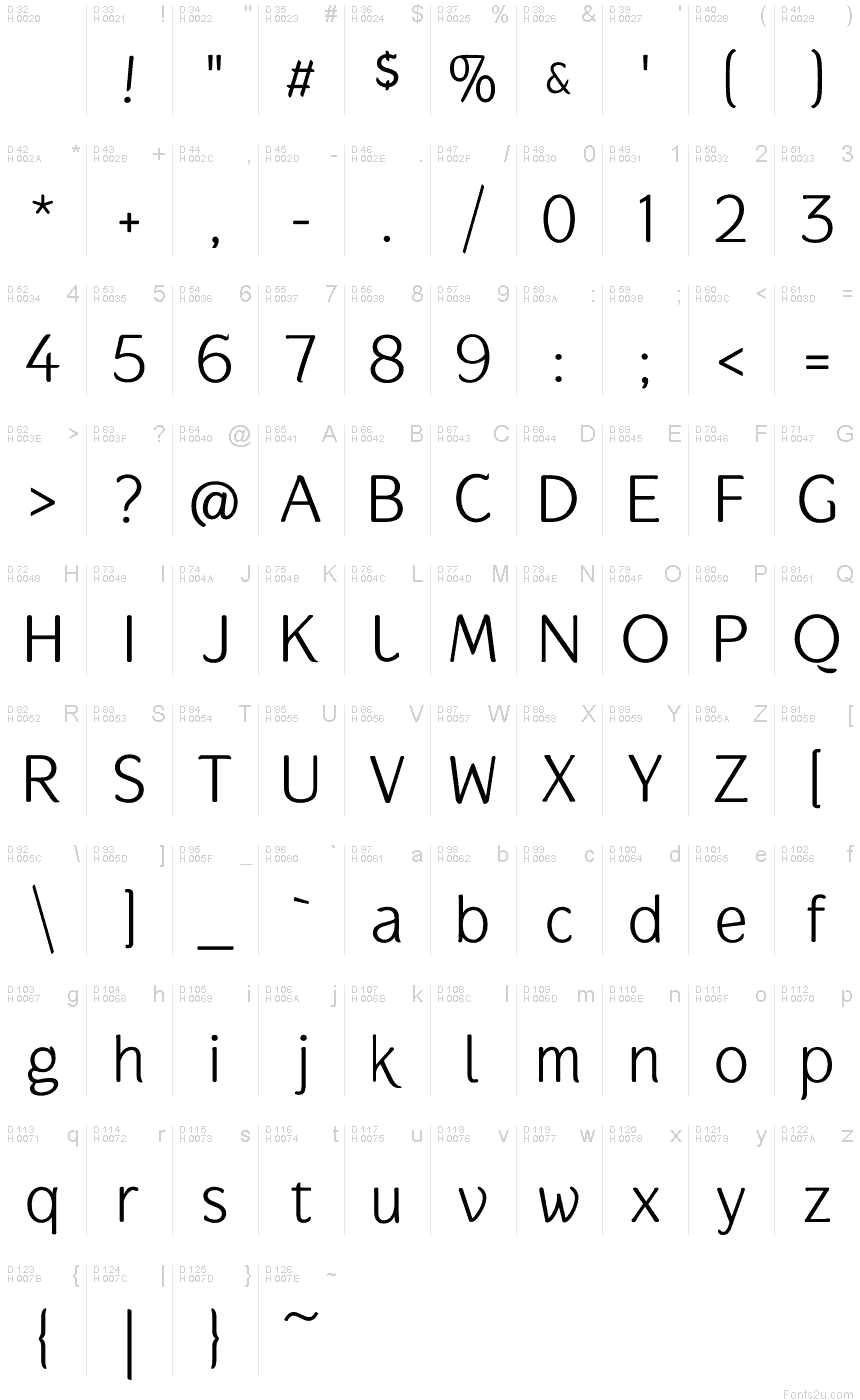
Gauntlet Classic
Gauntlet Classic font by Dimitri Castrique is a free sans serif typeface with a subtle, almost calligraphic warmth that sets it apart. The letters feel clean and modern at first glance, but those gently flared stroke endings and soft, rounded curves give the text a human, bookish tone—like a refined serif that’s been carefully sanded down. It reads as calm and confident rather than cold, making long words feel surprisingly approachable.
Using Gauntlet Classic, you get a text voice that’s both contemporary and literary, which works beautifully for branding, editorial layouts, book interiors, long-form blogs, product packaging, and thoughtful UI labels. This free font holds its character in medium sizes and pairs easily with a simple geometric sans for captions or navigation. Try running Gauntlet Classic as the main text face and a lighter sans from the Gauntlet family for small interface details to keep your hierarchy clear but cohesive.